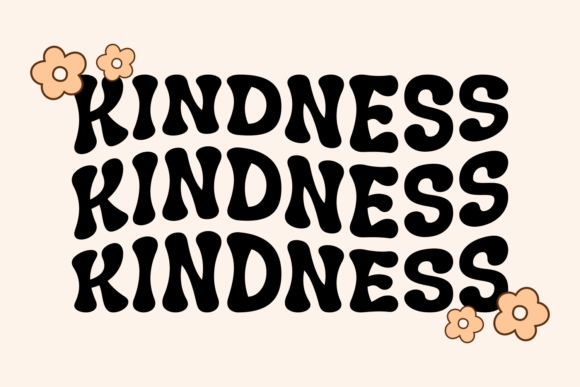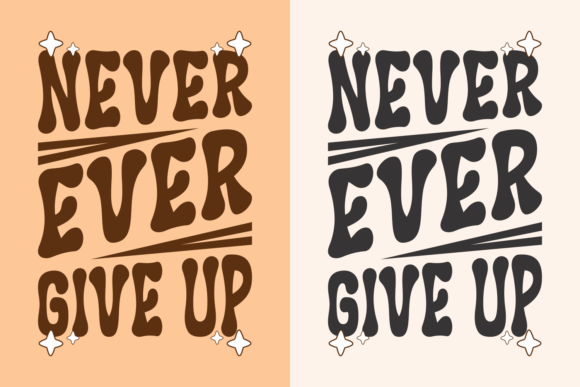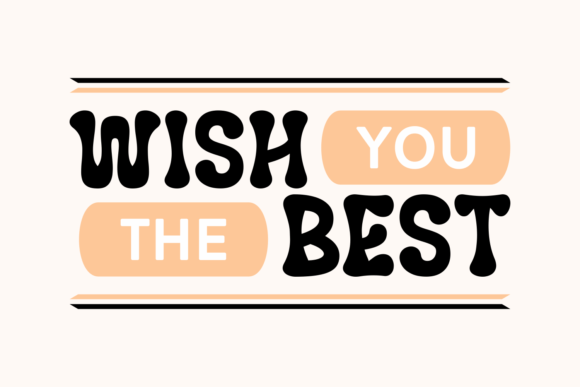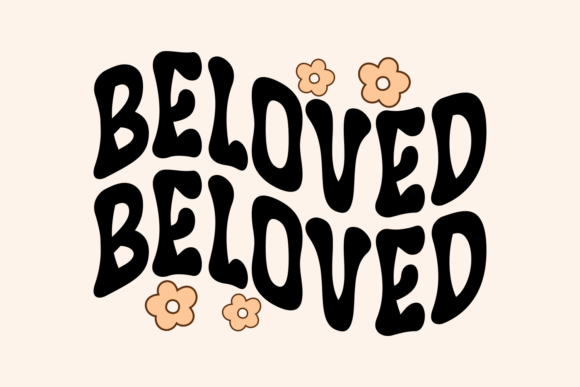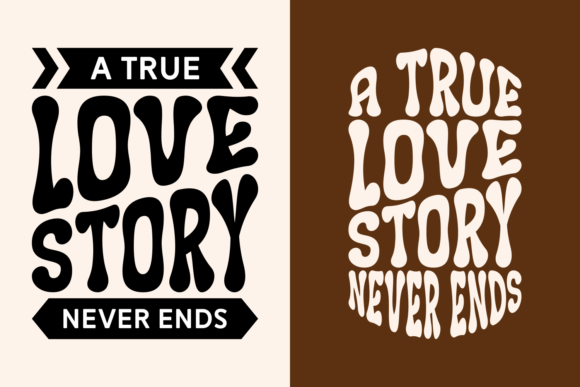
Introduction to Molly Retro Font
Have you ever stumbled upon a vintage postcard in a dusty old shop, and suddenly, a flood of creative ideas washes over you? For designers, this feeling is a familiar sensation. It’s the spark that sets our imagination ablaze, and we can’t help but wonder how we can bring that same nostalgic charm to our work.
That’s where the enchanting Molly Retro Font comes in – a stunning, high-quality design resource that adds a touch of whimsy and romance to any project. With its transparent background and free download option, it’s the perfect addition to your design arsenal, waiting to elevate your creative project to new heights.
Whether you’re crafting a beautiful greeting card, designing a captivating headline, or working on a unique visual identity, the Molly Retro Font is an invaluable asset that will transport your audience to a bygone era of elegance and sophistication.
Key Features of Molly Retro Font
- Unique, hand-drawn design with a touch of nostalgia, perfect for creative projects and design resources.
- Features a wide range of characters, including uppercase and lowercase letters, numbers, and special symbols.
- Perfect for adding a vintage touch to your designs, from branding and advertising to packaging and editorial content.
Honest Review: Molly Retro Font
I recently had the chance to work with the Molly Retro Font, and I’m excited to share my honest review with you. As a designer, I’m always on the lookout for high-quality design resources that can elevate my creative projects.
Here’s what works well: ✨ The font is incredibly versatile, making it perfect for a wide range of design applications. I’ve used it for everything from social media graphics to print materials, and it always looks great. The retro aesthetic is also super on-trend right now, so it’s a great addition to any design project.
Some of the key features that I love about the Molly Retro Font include:
- High-quality design, with clear and crisp typography
Of course, no font is perfect, and there are a few limitations to be aware of: ⚠️ The font is a bit limited in terms of customization options, which can make it tricky to use for certain design projects. Additionally, some of the characters may not display properly in certain fonts or systems.
Overall, I’m really impressed with the Molly Retro Font. It’s a great addition to any designer’s toolkit, and I’m excited to see how I can use it in future creative projects.
Molly Retro Font
Molly Retro Font is perfect for creating unique and eye-catching designs for various creative projects, such as:
- Invitations and party decorations
- Social media graphics and advertisements
Tips for Getting the Most Out of Molly Retro Font
To get the most out of Molly Retro Font, try combining it with other design elements, such as bold lines, bright colors, and geometric shapes. Experiment with different font sizes and styles to create a unique and visually appealing design. With its transparent background, you can easily combine the font with other design elements to create a